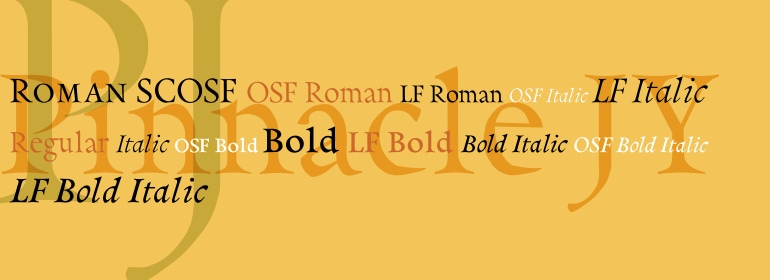
Pinnacle JY Font
Pinnacle JY Font is perfect for corporate leadership branding, executive coaching materials, business summit promotions, professional achievement awards, leadership conference signage, executive recruitment advertising, corporate training programs, business excellence campaigns, peak performance workshops, and aspirational career development materials.
What makes Pinnacle JY Font so exciting is its remarkable ability to inspire and communicate the pursuit of excellence through letterforms that seem to reach toward the summit of achievement and professional success. This motivational typeface captures the essence of ambition and peak performance with characters that radiate determination, leadership potential, and the unwavering drive to reach the top of any field or industry. The font's aspirational design elements perfectly balance professional authority with inspirational energy, creating a powerful tool that communicates achievement, excellence, and the relentless pursuit of success, making it indispensable for brands and organizations dedicated to helping others reach their highest potential.
Pinnacle JY Font comes in multiple font families including Regular, Bold, Light, Italic, Bold Italic, Achievement, Leadership, and Success variations. Each family member maintains the core excellence characteristics while offering different motivation levels and stylistic approaches to suit various professional development design requirements.
The Pinnacle JY Font Free Download provides career coaches, business leaders, and motivational organizations with an exceptional resource for creating inspiring materials that drive individuals and teams toward peak performance and professional excellence. This remarkable typeface distinguishes itself through its unique ability to communicate themes of leadership development, professional growth, and achievement excellence. Whether you're developing executive coaching brands, creating motivational seminar materials, or designing career advancement programs, this font ensures your message radiates the inspiring energy and professional credibility that ambitious audiences seek.
The motivational precision in Pinnacle JY Font makes it particularly effective for organizations focused on professional development and leadership training where inspiring confidence and communicating achievement potential is crucial for client engagement. Its aspirational letterforms work exceptionally well across all motivational applications, from personal development workshops to corporate leadership programs, maintaining consistent inspirational impact throughout.
Professional development specialists recognize how Pinnacle JY Font transforms ordinary motivational content into powerful declarations of potential achievement and professional excellence. The typeface's inspiring character set includes special achievement symbols and success elements that enhance the overall motivational atmosphere of any professional development project.
For creative professionals serving executive coaching firms, professional development organizations, and career advancement services, Pinnacle JY Font serves as the perfect foundation for establishing memorable visual identities that capture the essential qualities of leadership excellence, professional achievement, and peak performance that define successful careers and inspire others to reach their highest potential.